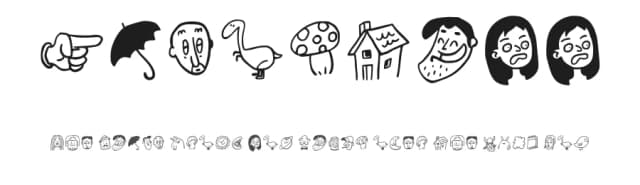
About Scribynumbers Font
Scribynumbers is a dingbat font designed by Niko Caruso. It includes 143 glyphs, a medium weight, TTF (TrueType) format, and 133 languages. Scribynumbers is free to download; check the license details on this page before commercial use. Dingbat fonts like Scribynumbers work best for icons, ornaments, bullet points, and decorative accents.
Scribynumbers Font is a versatile dingbats font that works for both headings and body text. Pair it with a contrasting sans-serif or serif font to add visual interest and a clear distinction between titles and body copy.
Scribynumbers Font
by Niko Caruso
Scribynumbers Font is a dingbats typeface by Niko Caruso, ideal for logos, invitations, branding, and creative projects.